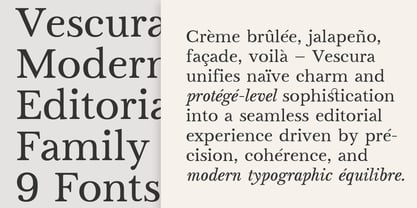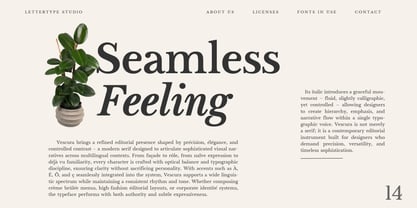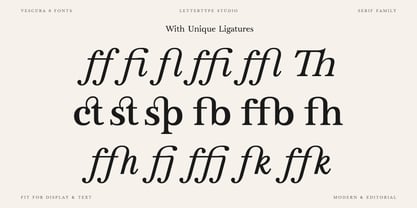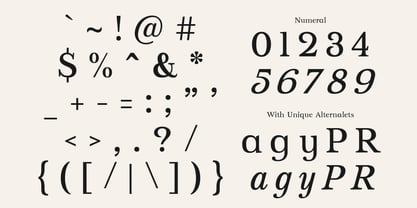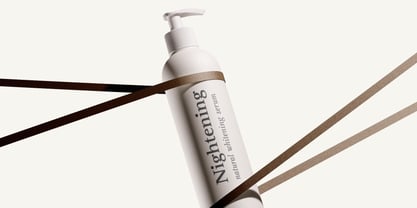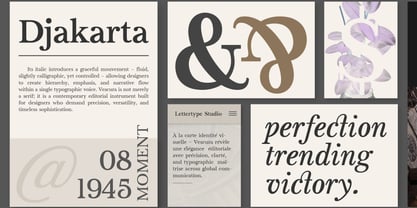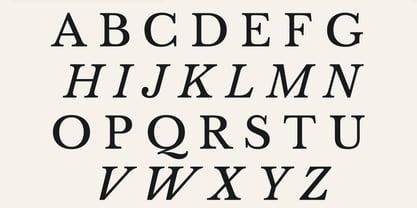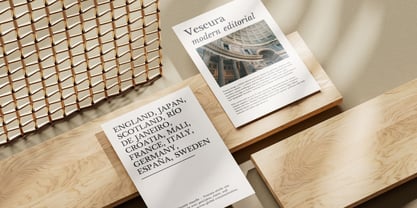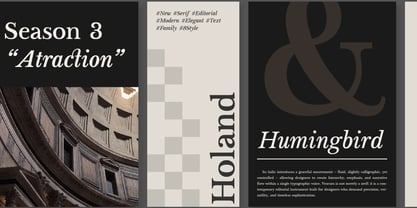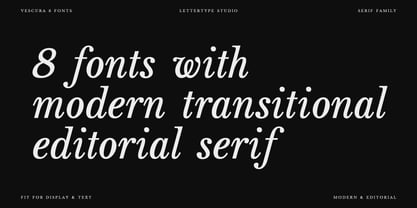
Vescura
The Vescura Font Family was designed by Diki Pradipta Tri Atmojo and published by Lettertype Studio. Vescura contains 10 styles and family package options. More about this family
Vescura is a modern transitional serif typeface defined by controlled contrast, balanced proportions, and a refined editorial tone. Its design bridges classical serif foundations with contemporary precision, resulting in a typeface that feels structured yet expressive. The carefully shaped serifs and consistent rhythm create a stable reading experience while maintaining a distinctive visual character. Designed for versatility, Vescura performs across both display and text applications. Its expressive italic introduces a dynamic contrast to the upright styles, making it especially effective for editorial layouts, branding systems, and modern visual identities.